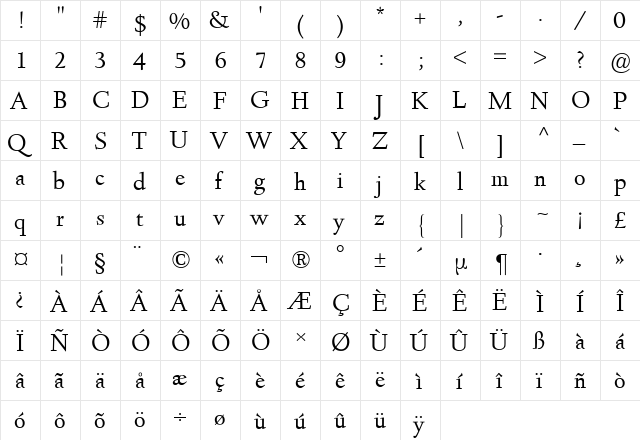
Deepdene BQ Regular
Design Context for Deepdene BQ Typeface
Deepdene BQ takes a measured approach to typography — its balanced proportions and neutral character make it a reliable workhorse for both digital and print work.
Pro Tip: Pair Deepdene BQ with a font of contrasting weight or personality to build a more expressive typographic hierarchy.